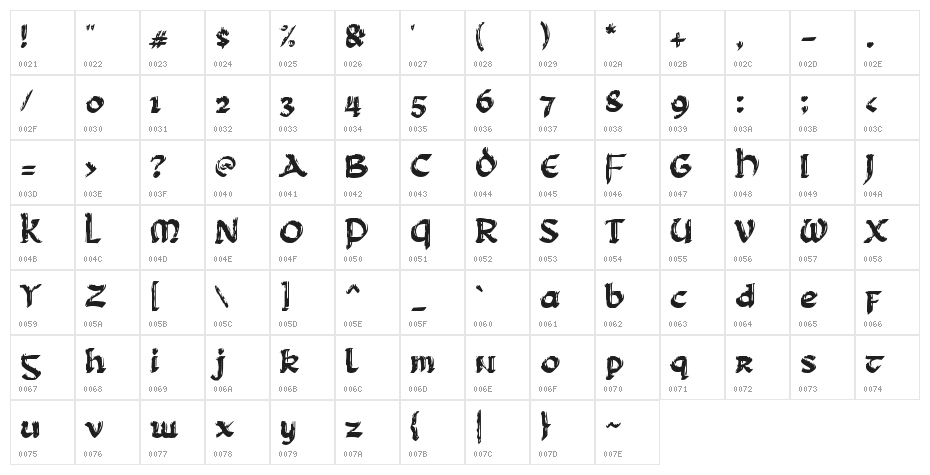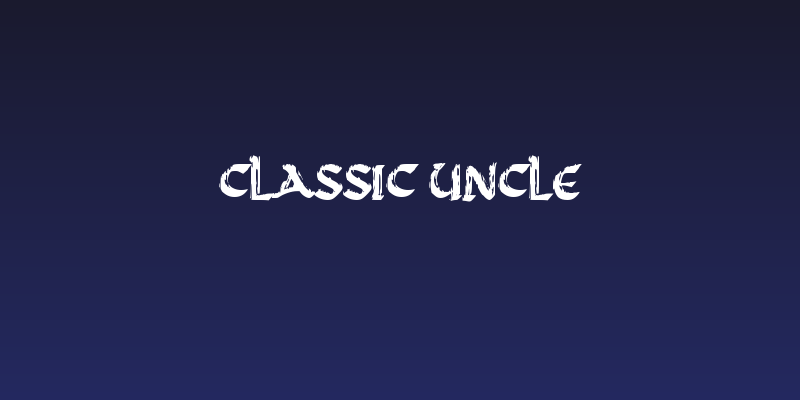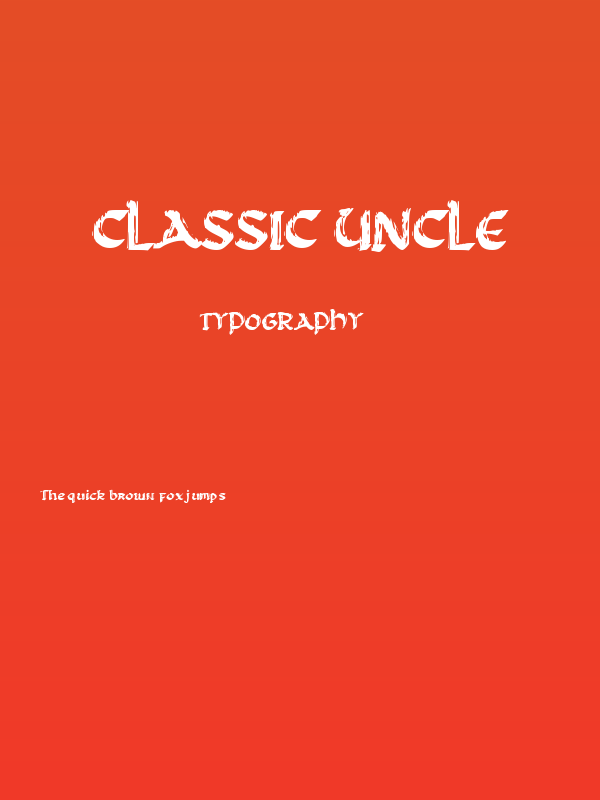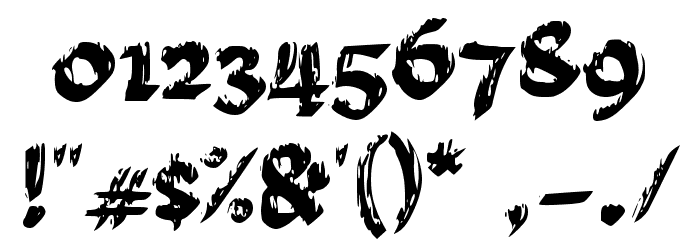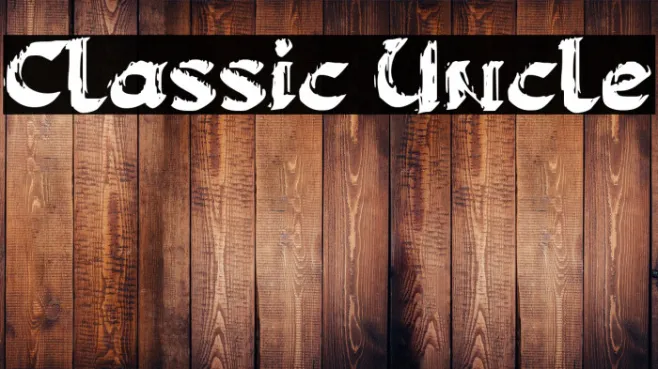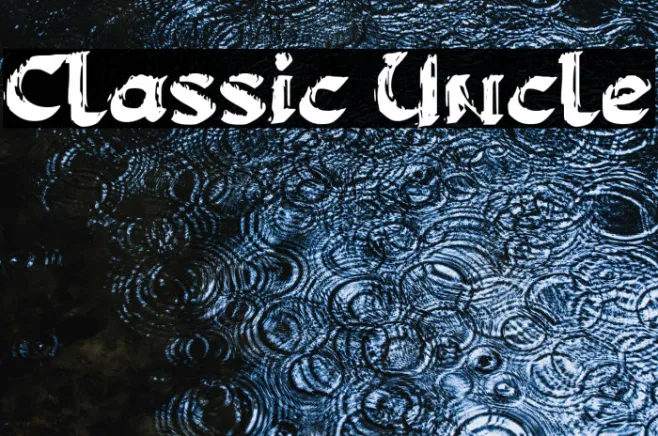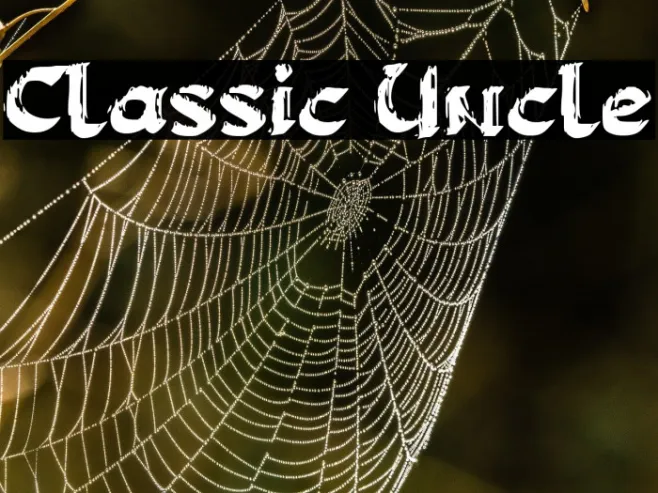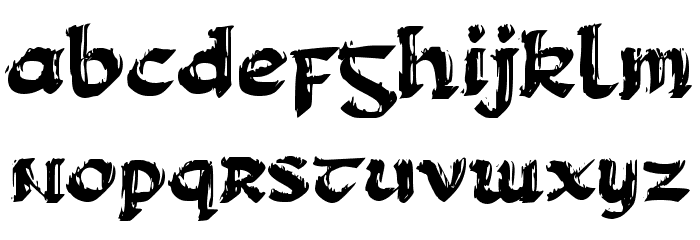
Classic Uncle Font
Classic Uncle Description
This font features a bold and dynamic brushstroke style, giving it a highly expressive and artistic appearance. The characters are crafted with irregular edges, mimicking the texture of paint applied with a brush. This creates a sense of movement and energy, making it stand out in any design. The uppercase and lowercase letters maintain a consistent style, with each character exhibiting unique flair. The numbers and special characters are equally expressive, ensuring a cohesive look across all text elements. This font is ideal for projects that require a strong visual impact and a creative touch.
| Proposed Projects | Ideal for artistic posters, creative branding, album covers, and dynamic social media graphics. |